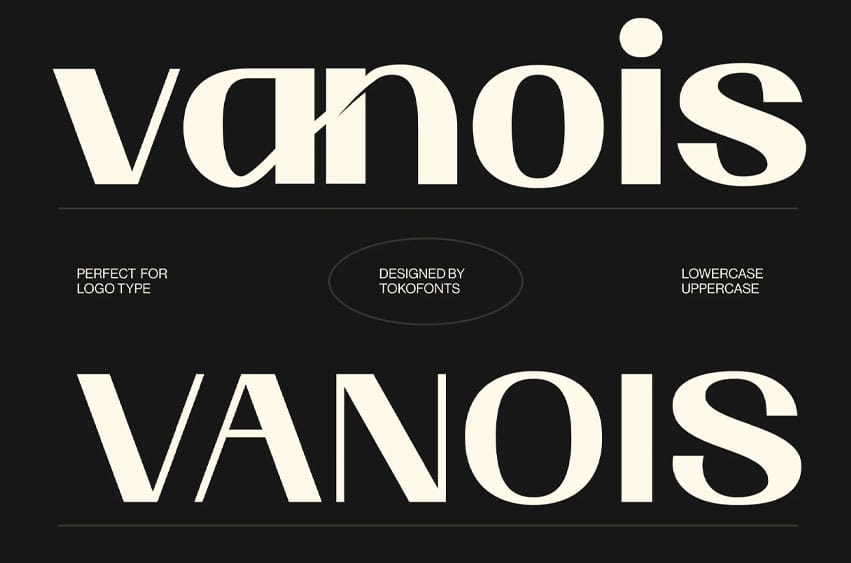
Vanois Font is a modern and elegant display typeface designed to deliver a clean and refined look for logo and branding projects. With its smooth curves and balanced proportions, this font draws inspiration from timeless styles like helvetica, montserrat, and futura while introducing a distinctive and contemporary character. Its minimal structure makes it perfect for fashion brands, corporate identities, and modern visual systems that demand clarity and sophistication.
Built for versatility, Vanois font adapts seamlessly across various creative needs, from professional corporate layouts to playful kids concepts. The clean and minimal design ensures excellent readability while maintaining a strong display presence, making it ideal for logos, branding, and editorial compositions. Vanois stands among modern fonts that combine elegance, simplicity, and functionality to create a powerful and memorable visual identity.